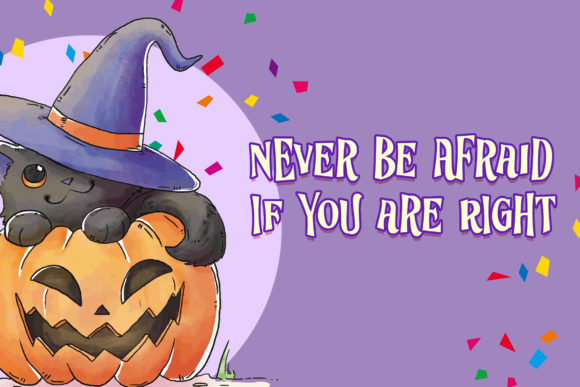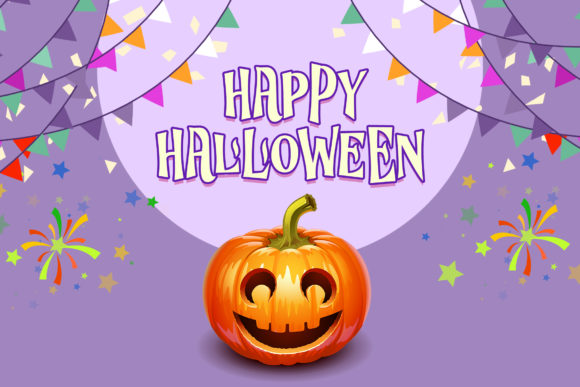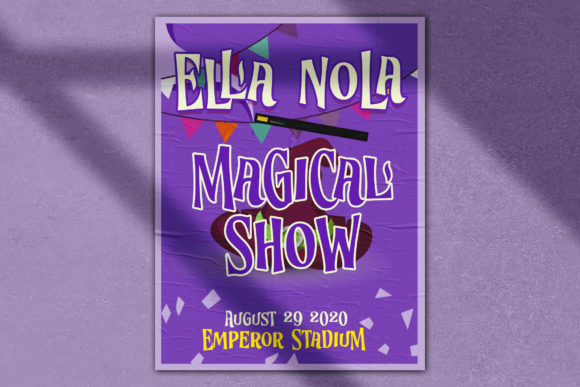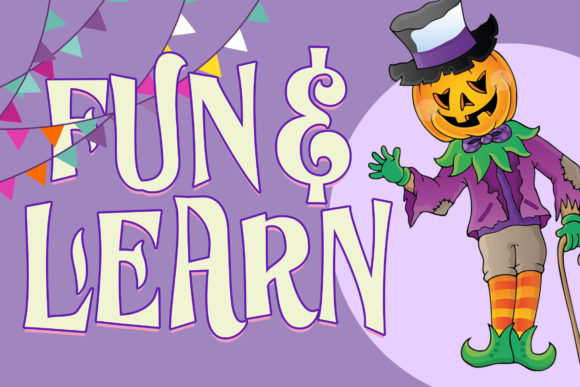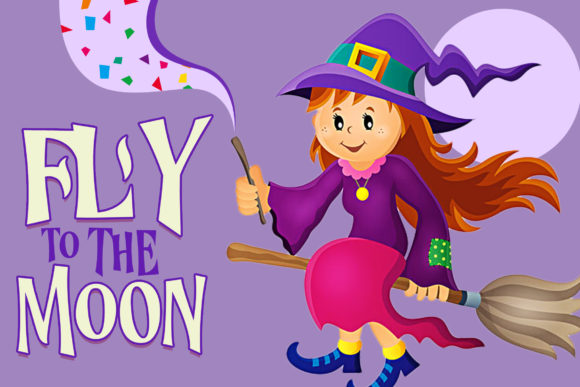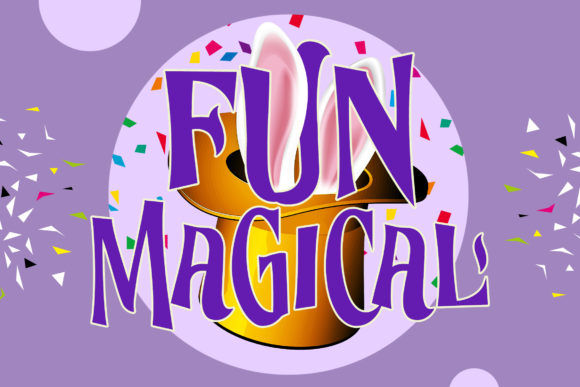
Unleash the Spookiness: Exploring the Ghostoons Font
As the spookiest time of the year approaches, designers and crafters are on the lookout for the perfect typography to make their Halloween-themed creations stand out. If you’re searching for a font that embodies the essence of Halloween, look no further than Ghostoons. This spooky and incredibly interesting display font is sure to add a touch of eeriness to your designs, making them a scream above the rest.
The Ghostoons Font: A Spooky Sensation
Ghostoons is a unique and eye-catching display font that’s perfect for adding a dash of spookiness to your Halloween-themed projects. With its bold and quirky design, this font is sure to capture the attention of anyone who lays eyes on it. Whether you’re creating invitations, posters, or social media graphics, Ghostoons is the perfect choice for designers and crafters looking to make a statement.
What Makes Ghostoons So Special?
So, what sets Ghostoons apart from other fonts? Here are a few features that make it a standout:
- Unique Design: Ghostoons boasts a one-of-a-kind design that’s sure to make your creations stand out. Its bold lines, quirky shapes, and eerie feel make it the perfect choice for Halloween-themed projects.
- Display Font: As a display font, Ghostoons is designed to make a statement. Use it to create eye-catching headlines, titles, and captions that will grab attention and leave a lasting impression.
- Versatile: Despite its spooky theme, Ghostoons is a versatile font that can be used in a variety of creative projects, from invitations and posters to social media graphics and more.
How to Use Ghostoons in Your Designs
Now that you’ve fallen in love with Ghostoons, it’s time to get creative! Here are a few ideas for using this spooky font in your designs:
- Halloween Invitations: Create spooky invitations for Halloween parties, trick-or-treat events, or haunted house attractions.
- Posters and Flyers: Design eye-catching posters and flyers for Halloween-themed events, such as horror movie screenings or spooky festivals.
- Social Media Graphics: Use Ghostoons to create spooky social media graphics, such as Halloween-themed Facebook posts or Instagram stories.
- Crafting Projects: Add a touch of spookiness to your crafting projects, such as Halloween-themed scrapbooking pages, cards, or DIY decorations.
Tips for Getting the Most Out of Ghostoons
To make the most of Ghostoons, here are a few tips to keep in mind:
- Experiment with Colors: Don’t be afraid to experiment with different colors to find the perfect combination for your design. Ghostoons looks great in bold, bright colors, as well as more muted, eerie tones.
- Mix and Match: Combine Ghostoons with other fonts to create a unique and eye-catching design. Try pairing it with a sans-serif font for a bold and modern look.
- Play with Texture: Add texture to your design by incorporating images, patterns, or textures that complement the spooky theme of Ghostoons.